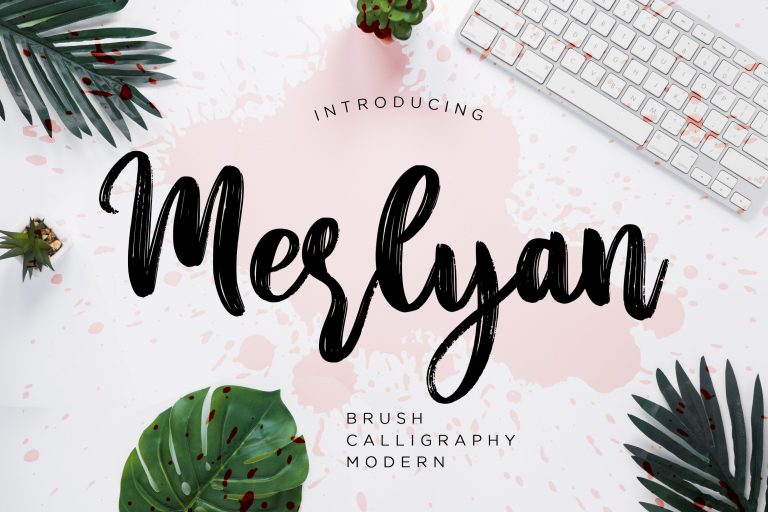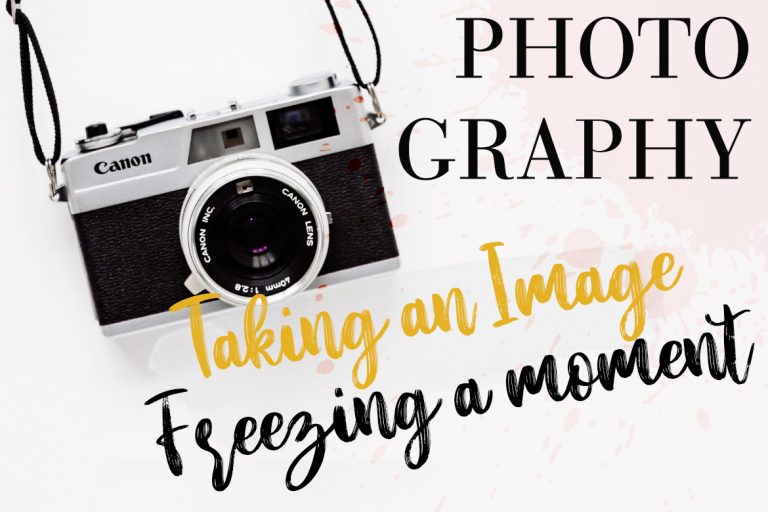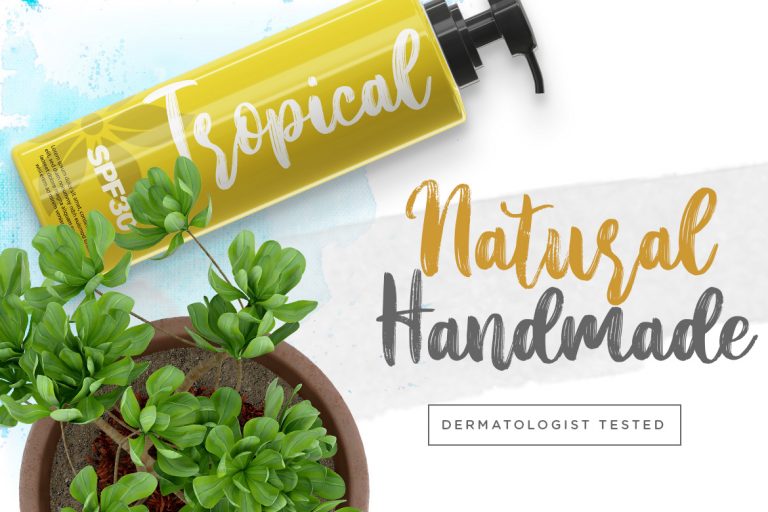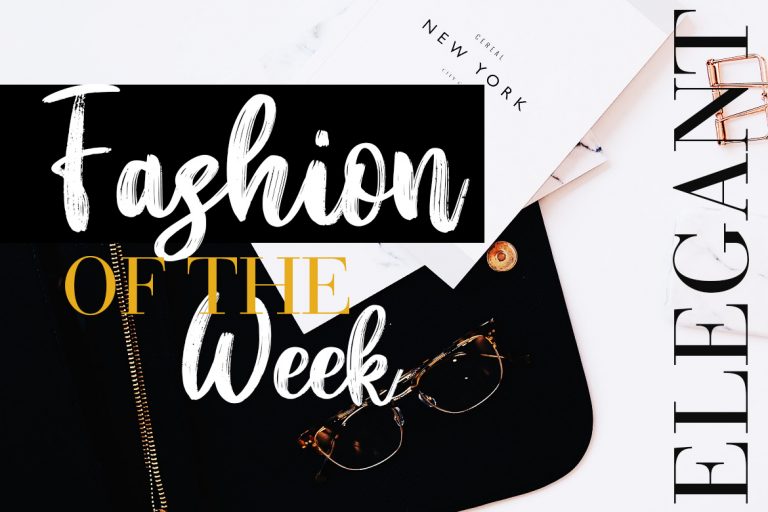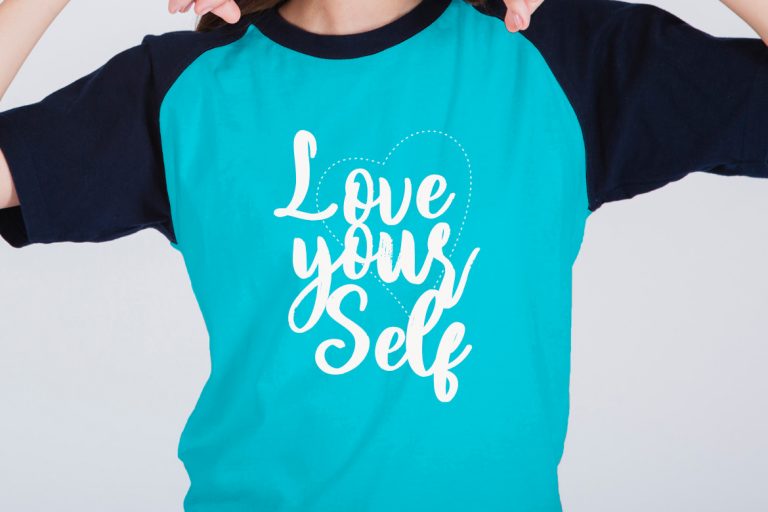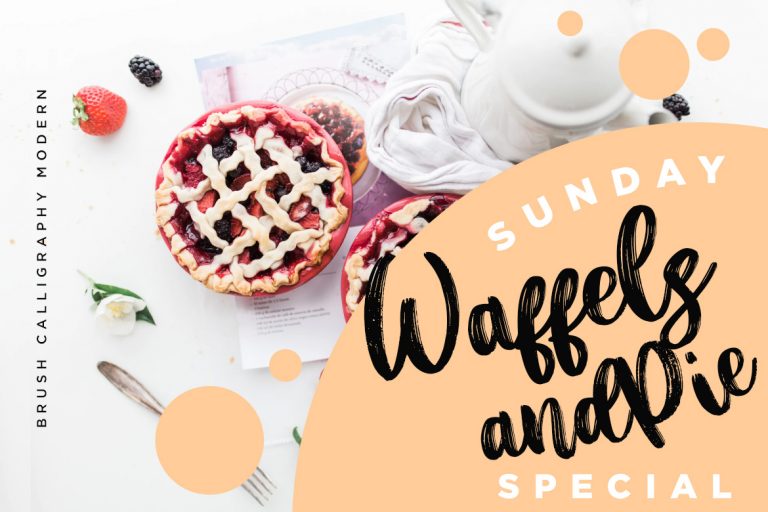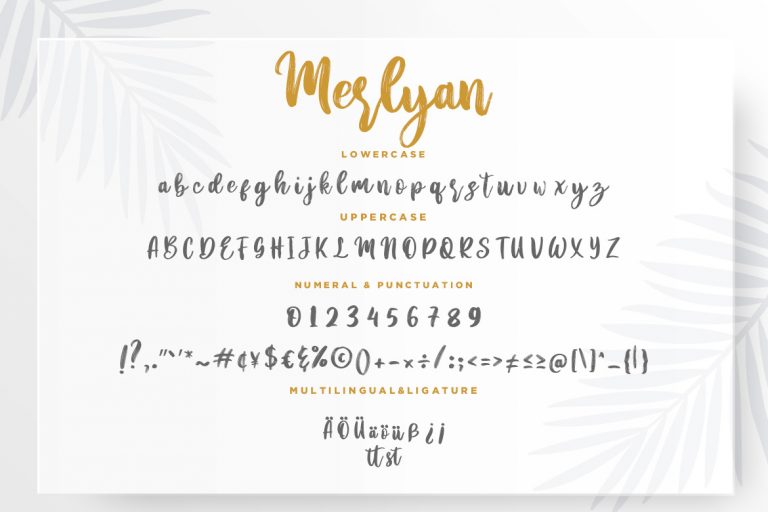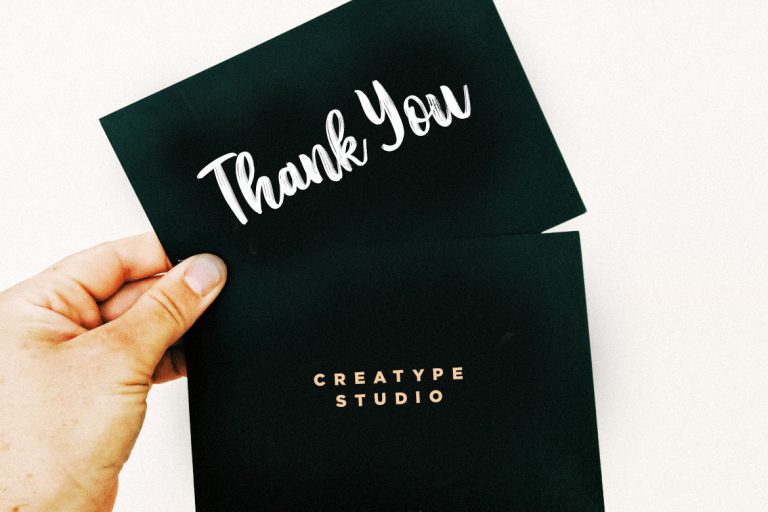
Merlyan is brush calligraphy modern font with handwritten style and elegant looks.
Merlyan is perfect for branding projects, logo, wedding designs, social media posts, advertisements, product packaging, product designs, label, photography, watermark, invitation, stationery and any projects that need handwriting taste.
- Standard glyphs
- Ligature
- Fonts include multilingual support for; ä ö ü Ä Ö Ü ß ¿ ¡
Merlyan Brush Calligraphy